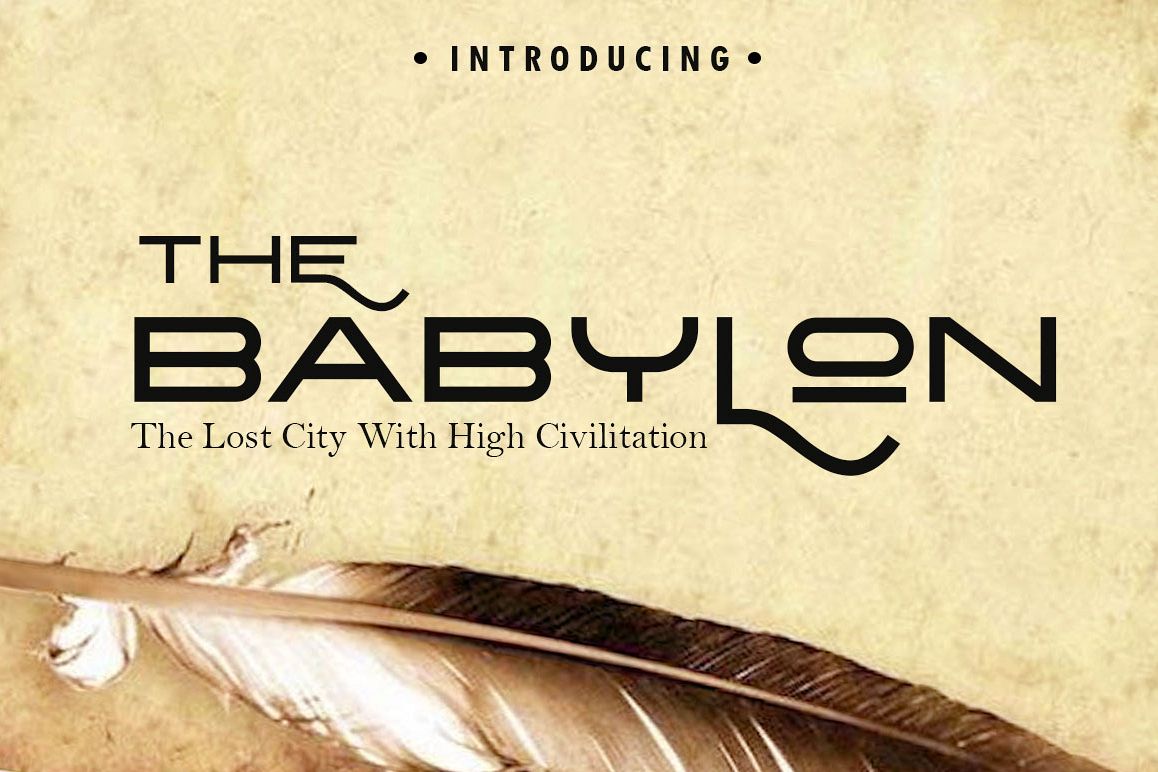
The Babylon Strong Typeface
Hey Guys! My new typeface The Babylon
is a playful and elegant sans serif, perfect for branding projects,
headlines, posters and packaging also for logos!
Primarily it is
characterized by a modern look with straight shapes, but on closer view,
A wide range of alternate characters, as well as five style typeface!
Furthermore it is a unicase typeface, all of the Babylon play with
uppercase initials.
Character set A-Z with uppercase with some special alternate options
Numerals & Punctuation
Multilingual support language characters